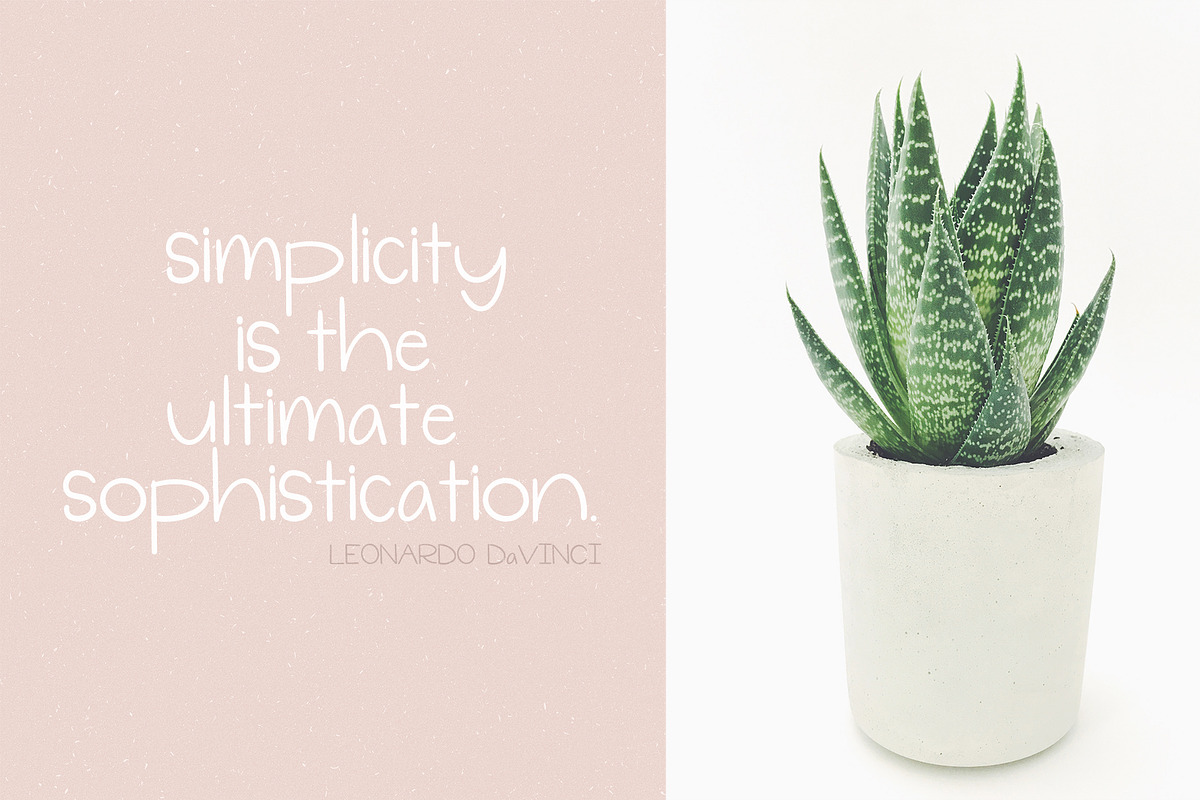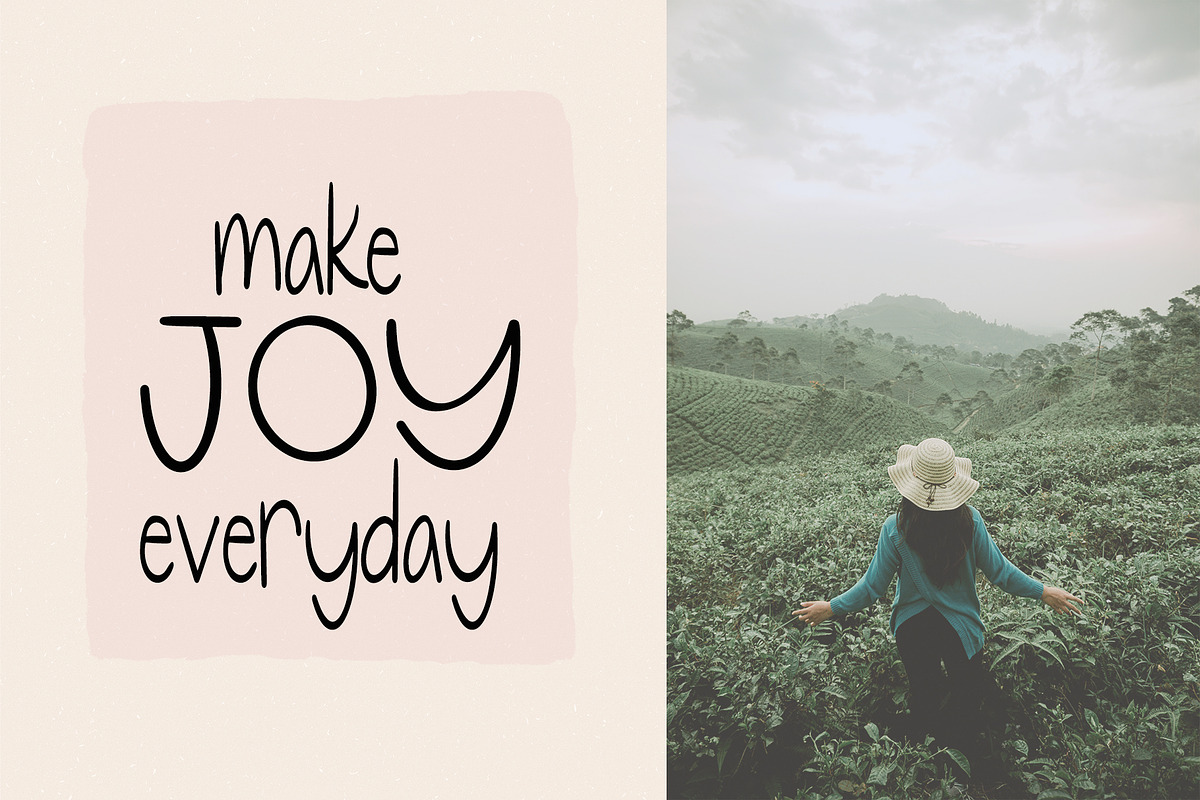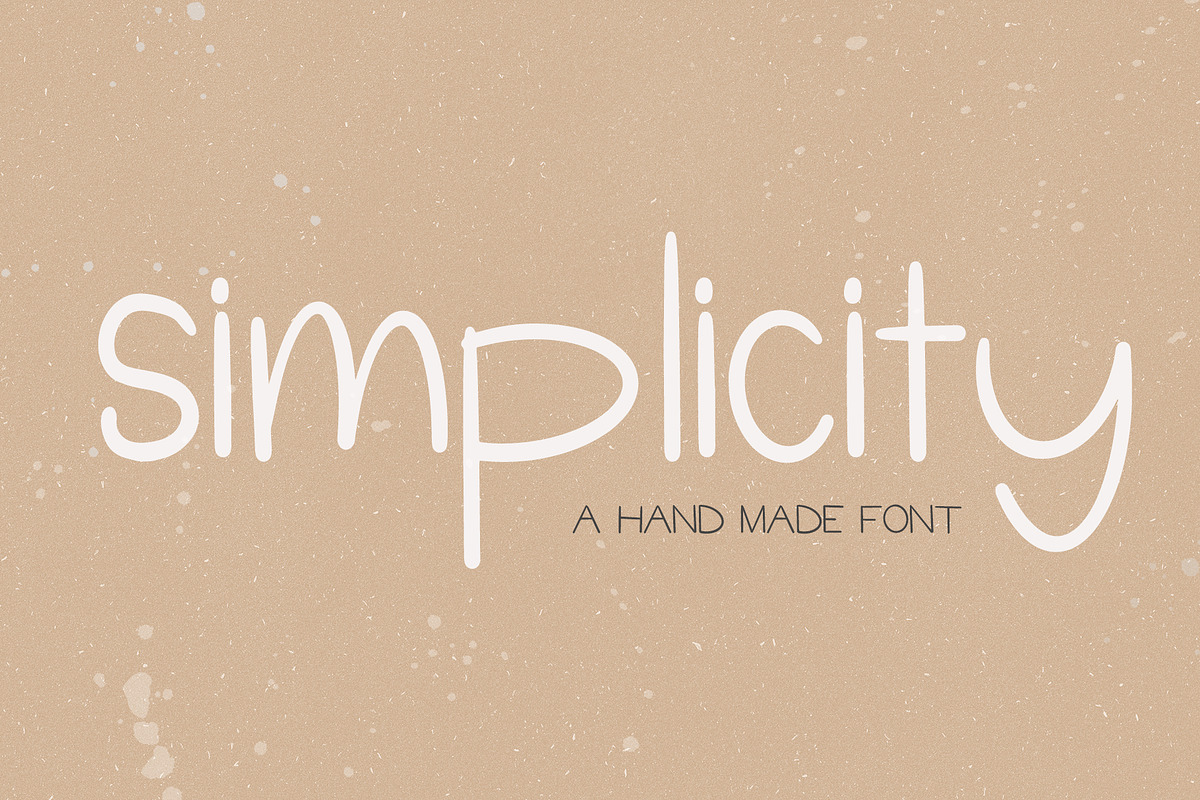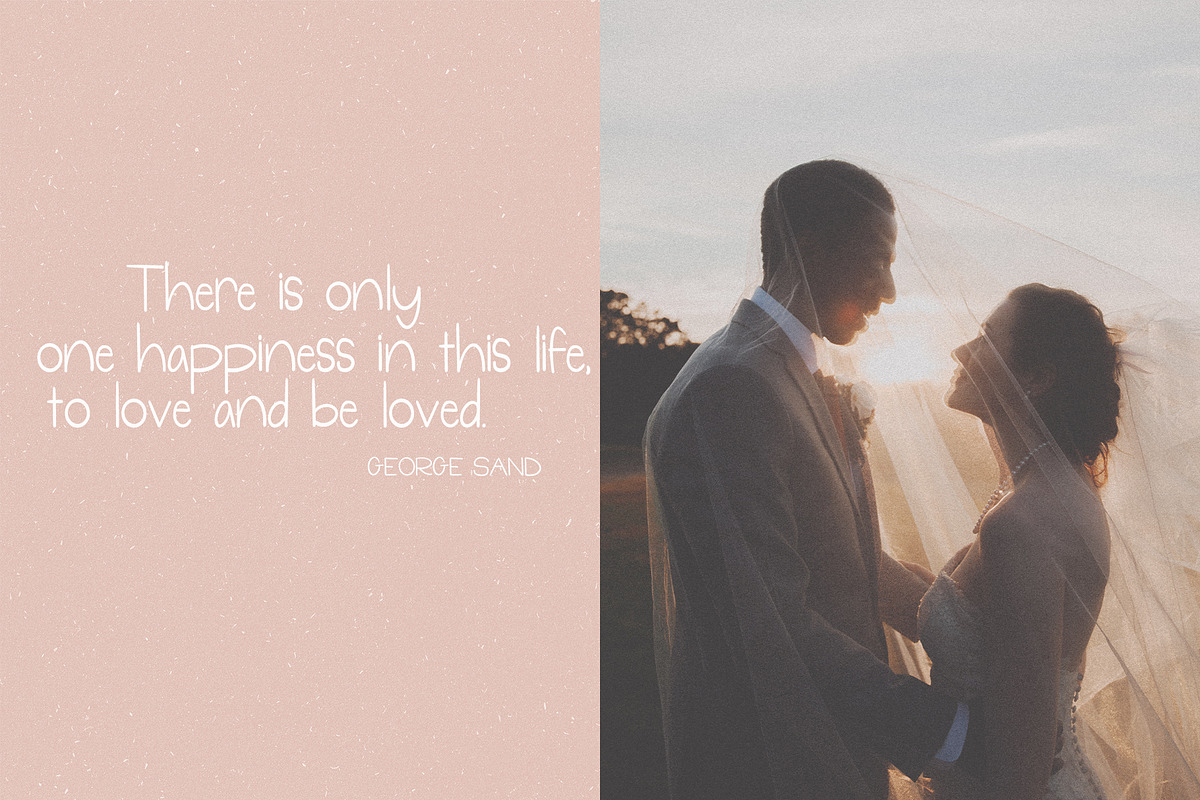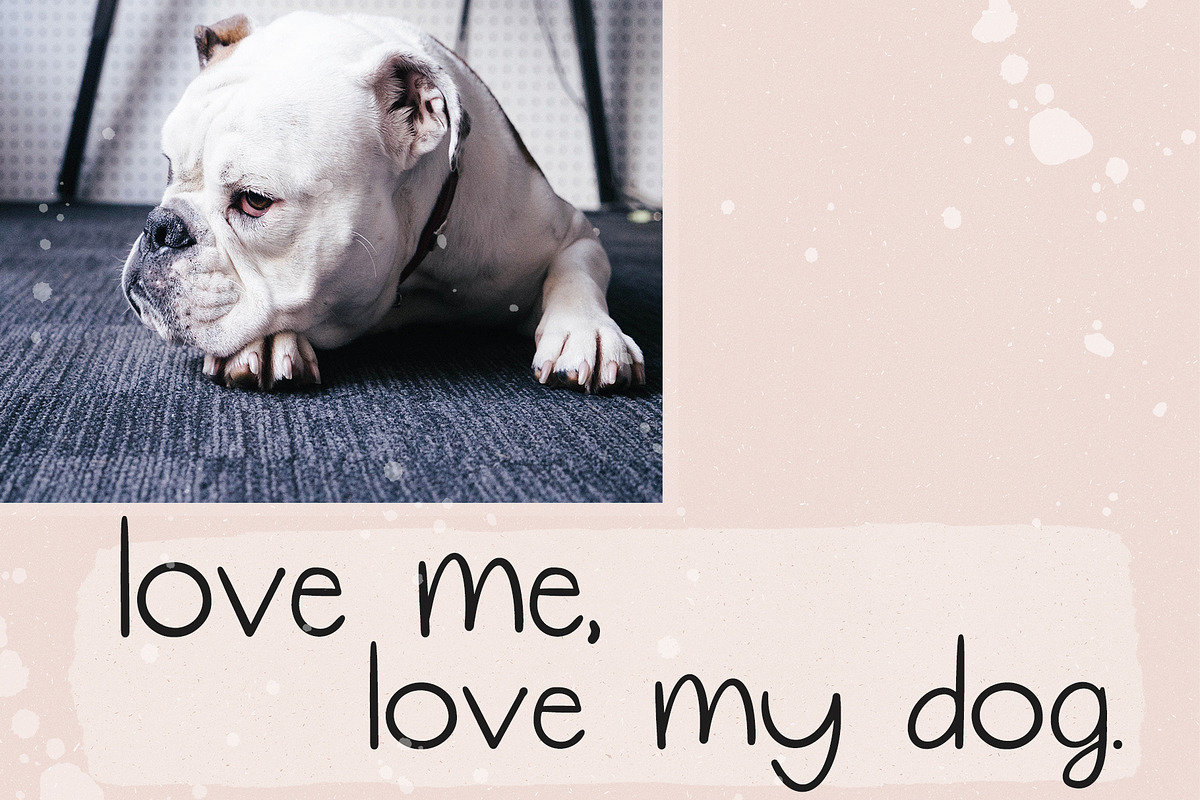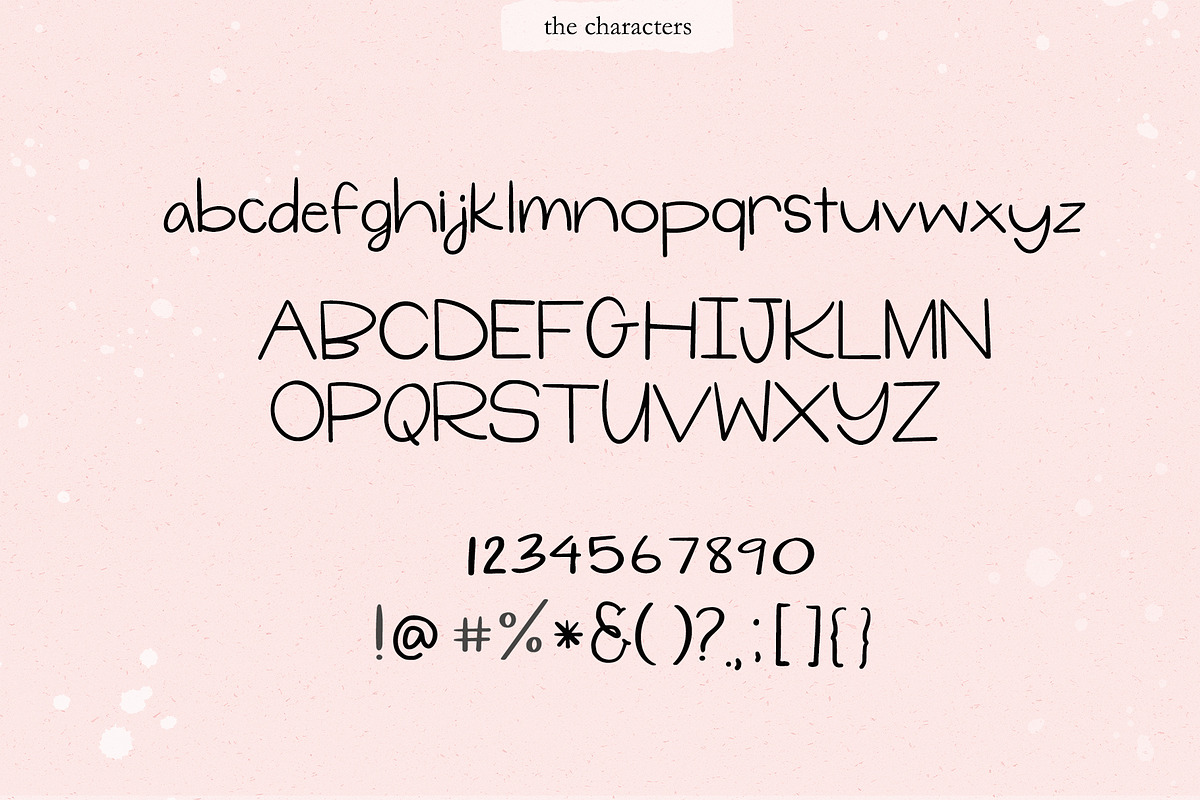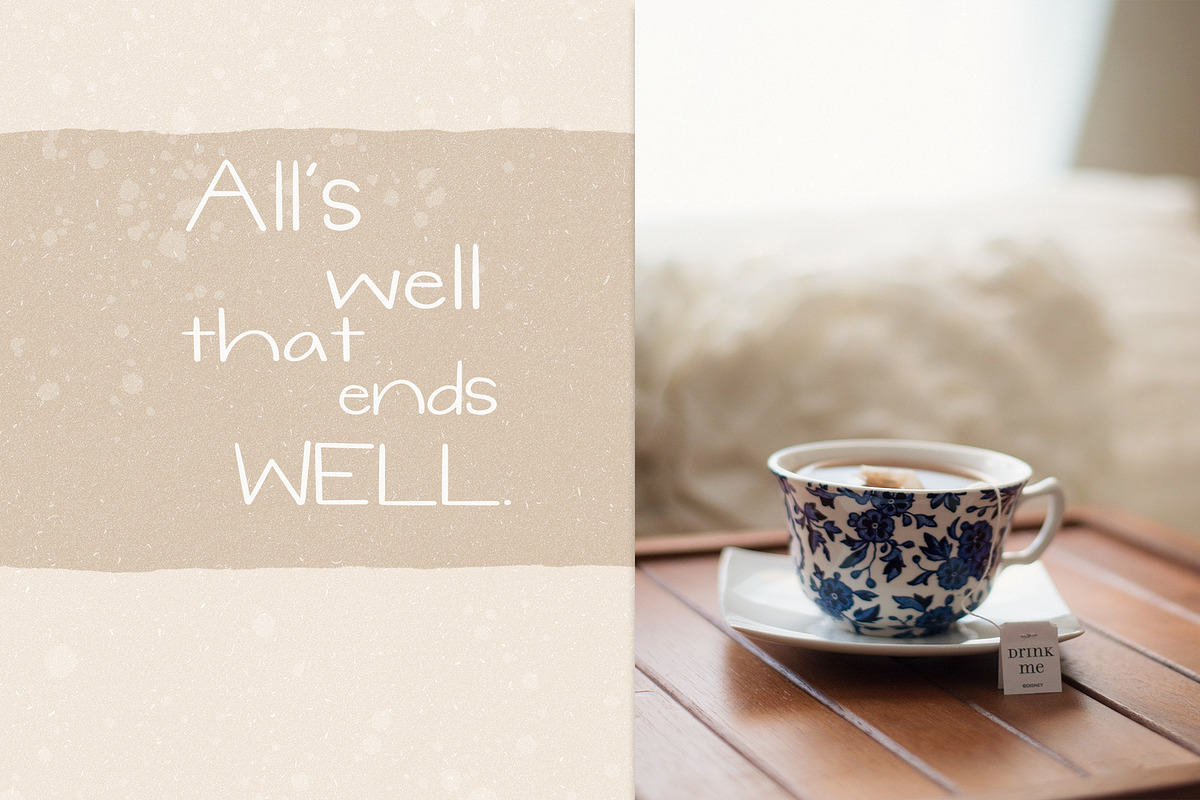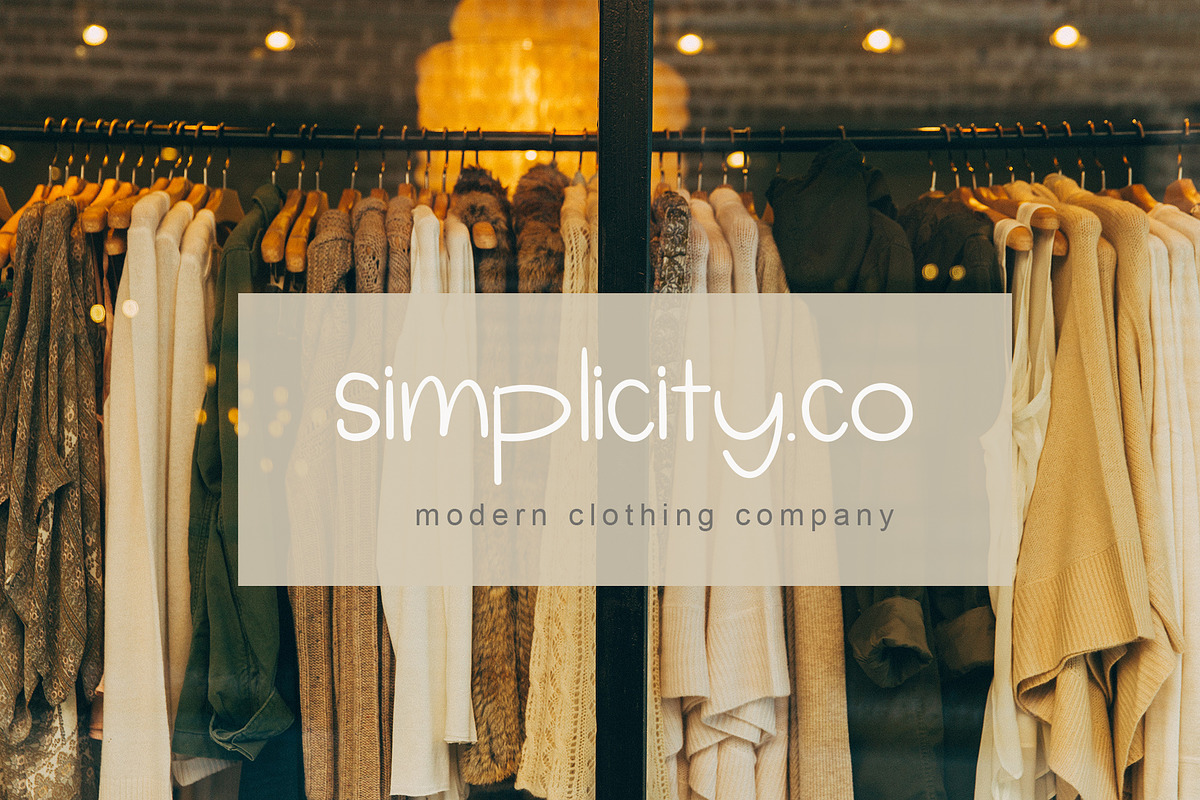
Simplicity Handmade Font
Simplicity is a contemporary handwritten font. This is perfect for blogs, newsletters, quotes, logos and more! The accent characters are not included. The purchase includes OTF and TTF fonts. You will be able to use this font in any program. Thank you!!!
Simplicity Handmade Font by Sweet Fig fits naturally into Branding, posters, packaging, typography.